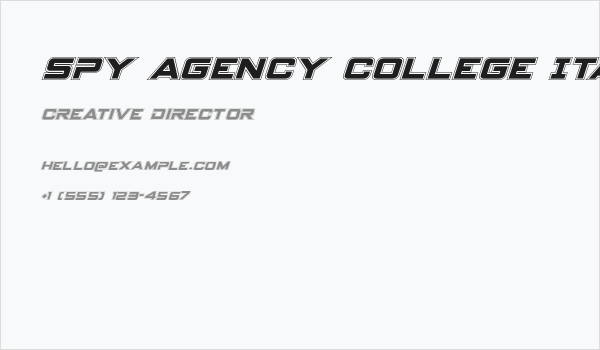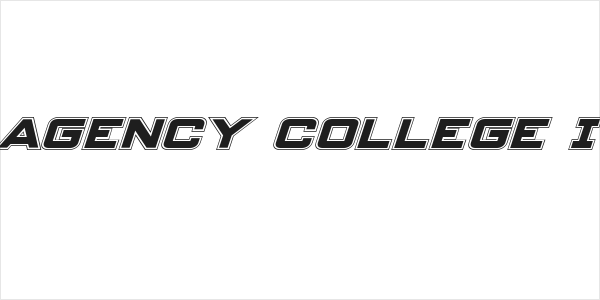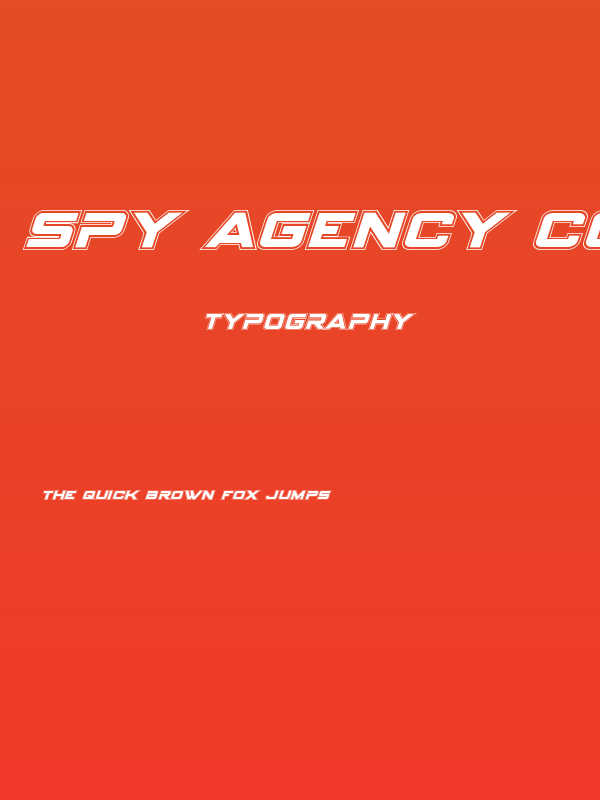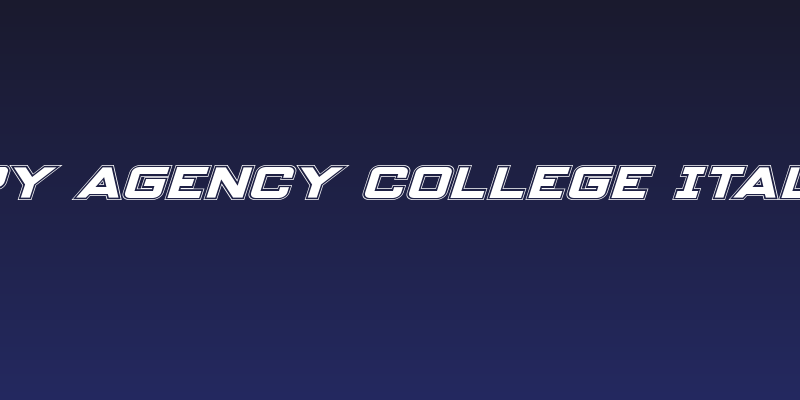
Spy Agency College Italic Font
Spy Agency College Italic Description
This font features a bold, italicized style with a strong, dynamic presence. The characters are designed with a distinct slant, giving them a sense of motion and urgency. Each letter is outlined, adding depth and a three-dimensional effect. The font is highly legible, with clear, sharp edges and consistent line thickness. The numbers and special characters maintain the same bold and italicized characteristics, ensuring uniformity across all elements. This font is ideal for creating impactful headlines or titles that demand attention.
| Proposed Projects | Ideal for sports branding, action movie posters, video game titles, and dynamic advertising campaigns. |